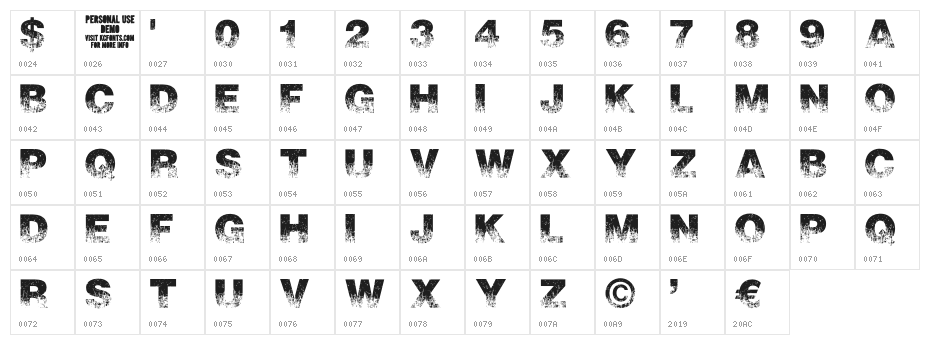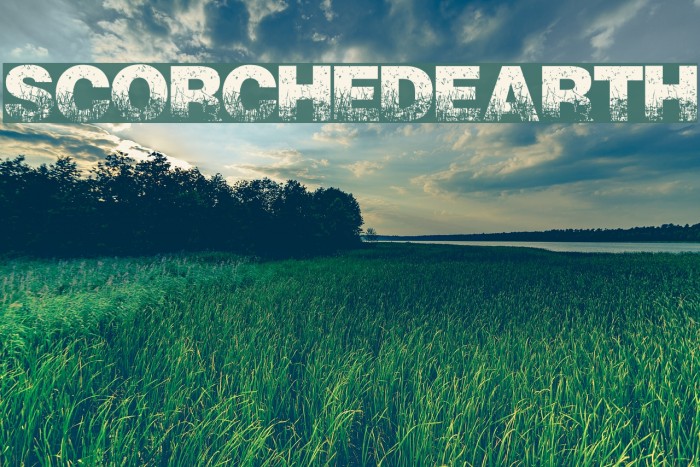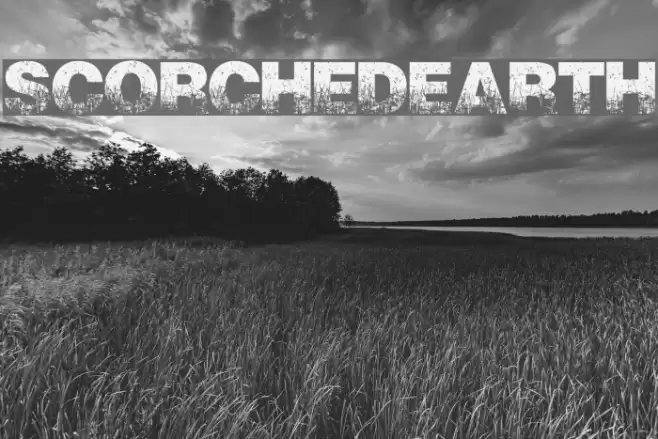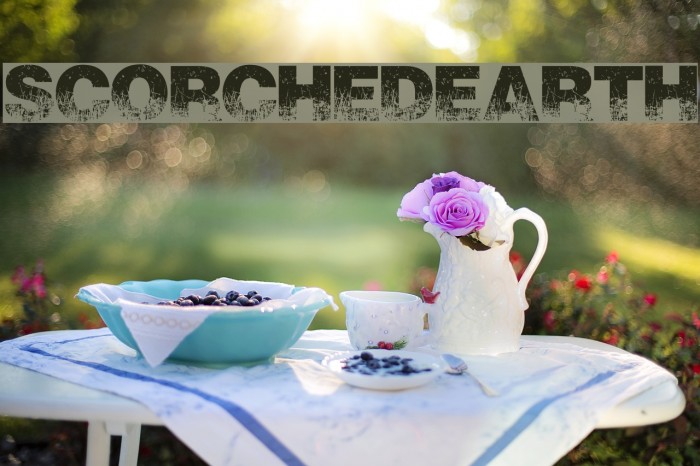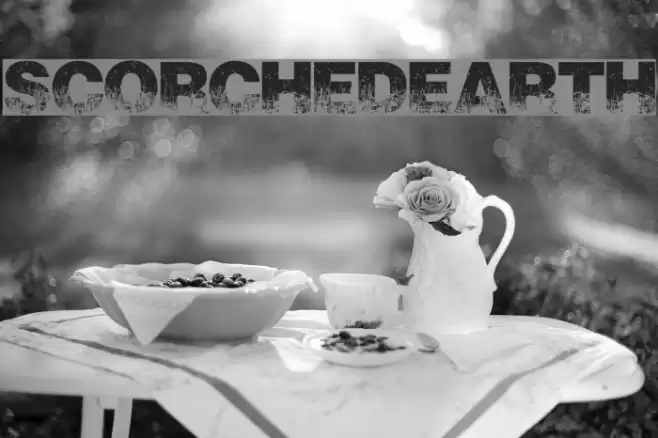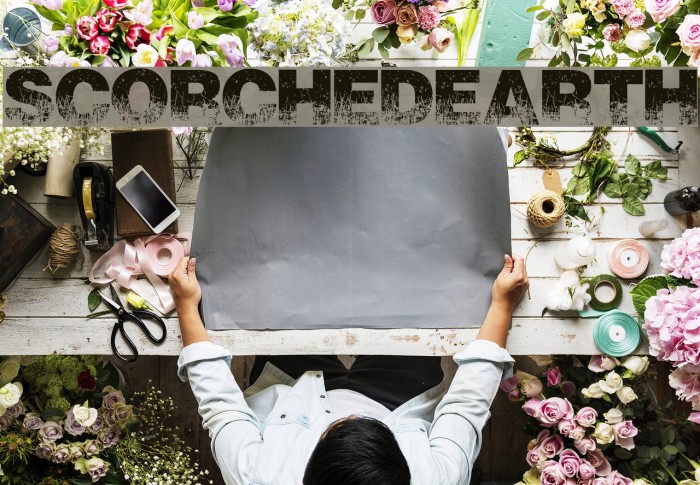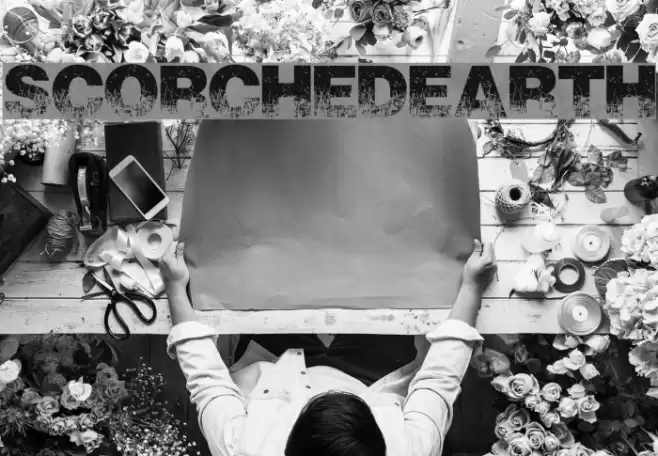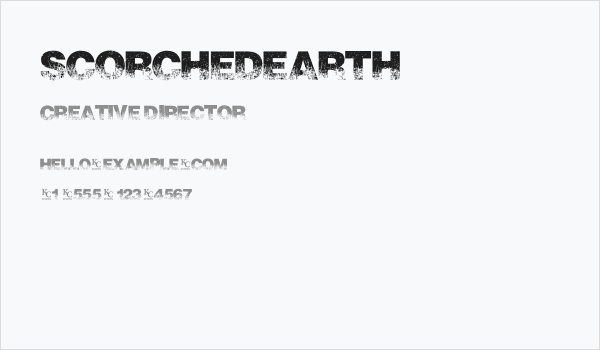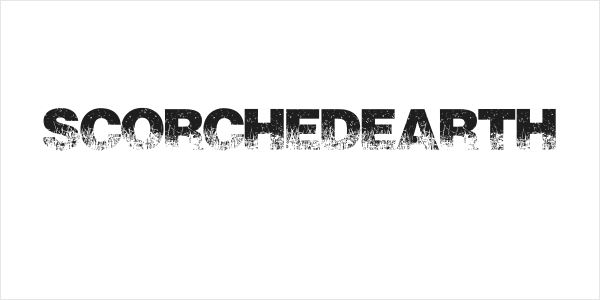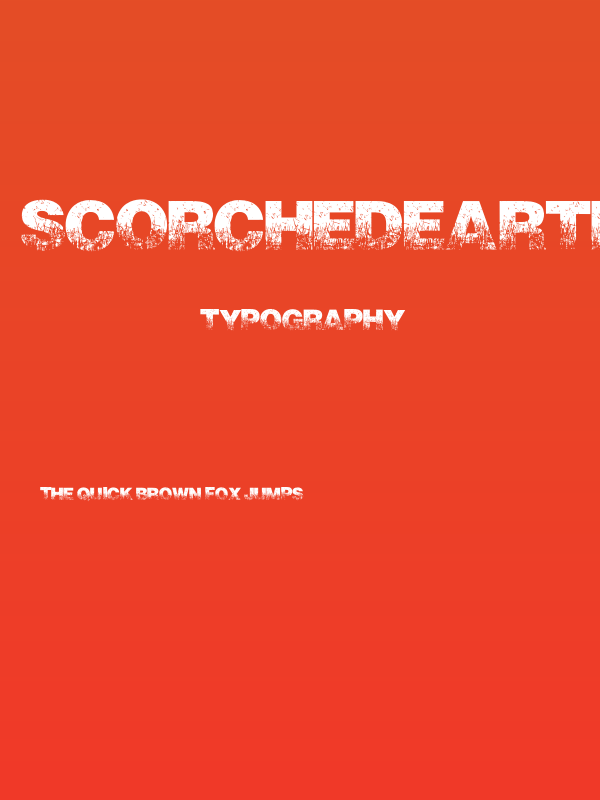
ScorchedEarth Font
ScorchedEarth Description
This font features a rugged, distressed appearance, reminiscent of scorched or weathered surfaces. The characters are bold and impactful, with a textured effect that gives them a gritty, worn look. This style is particularly striking in uppercase letters, where the distressed elements are more pronounced. The numbers and special characters maintain this rugged aesthetic, ensuring consistency across all glyphs. The font's unique texture makes it ideal for projects that require a bold statement or an edgy, industrial feel.